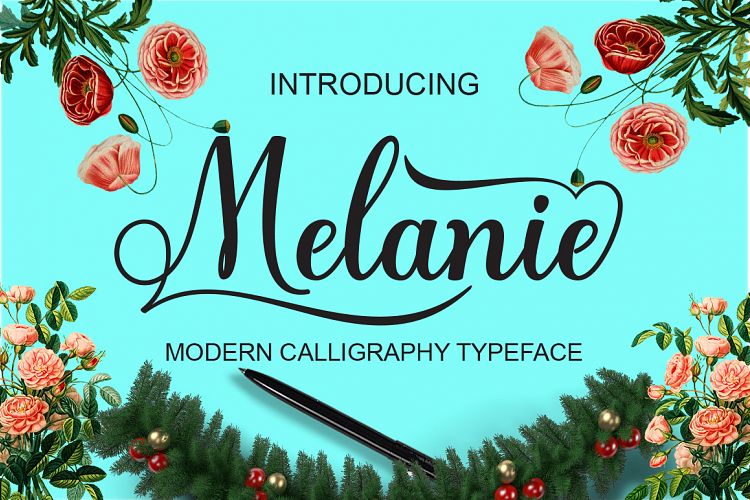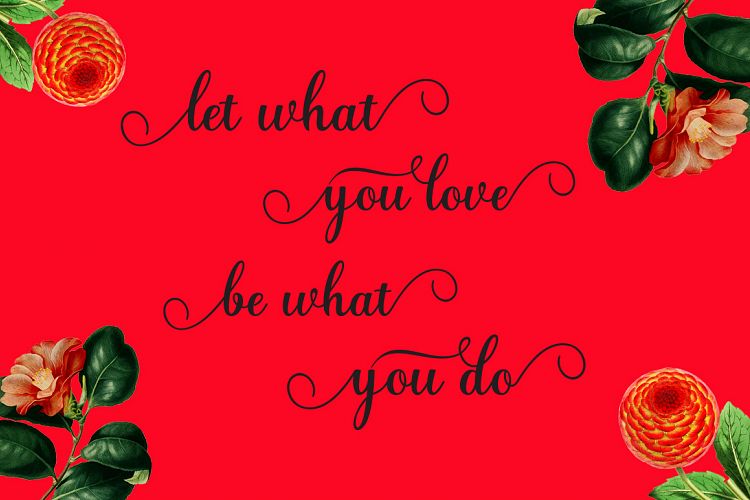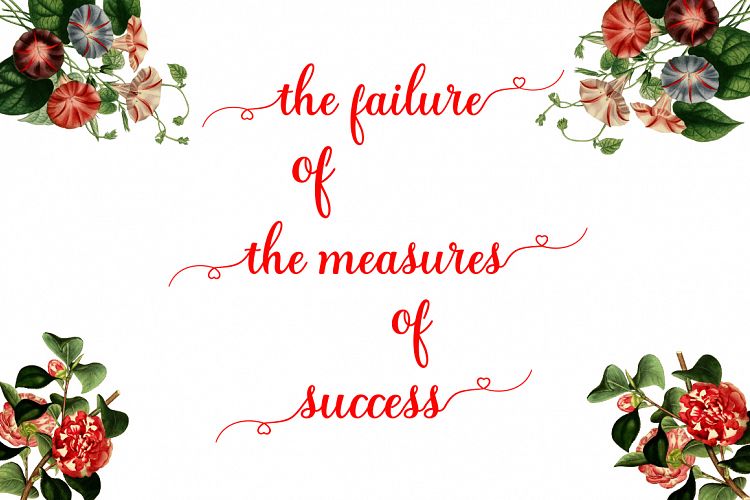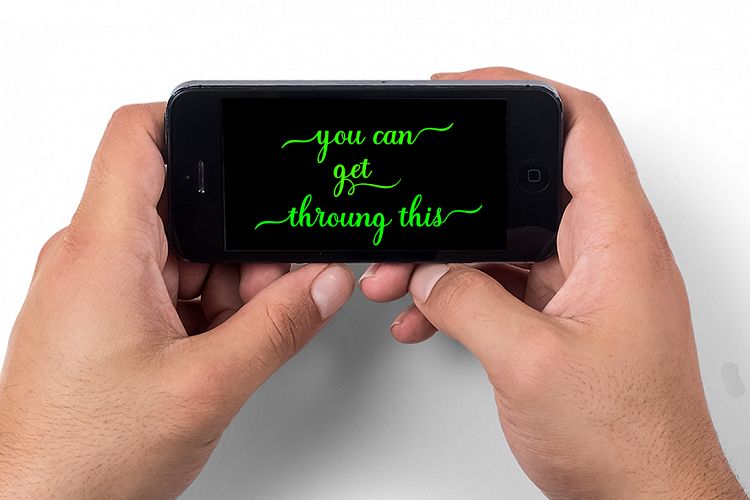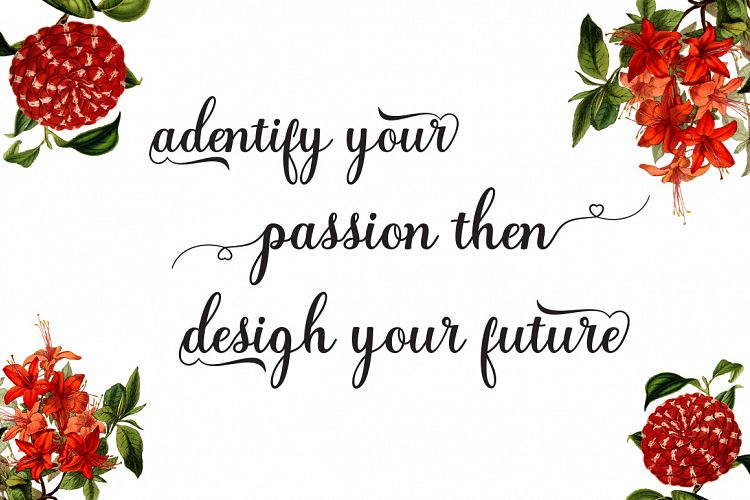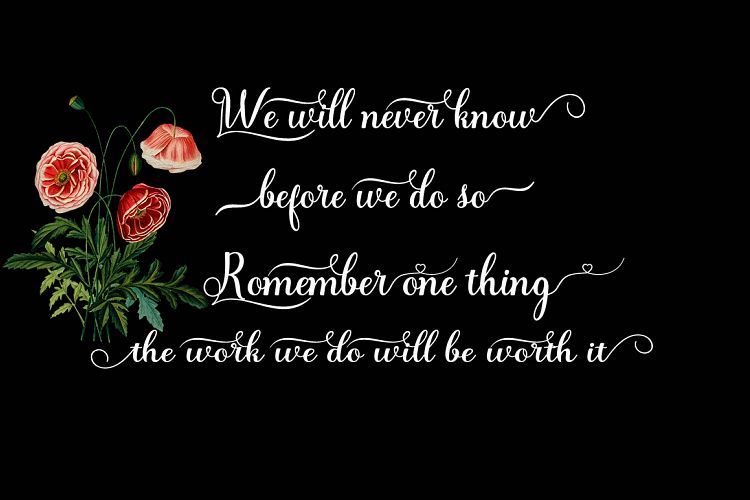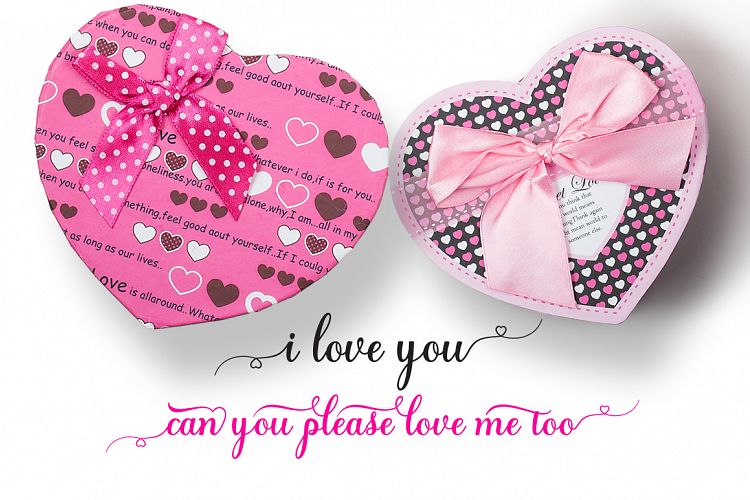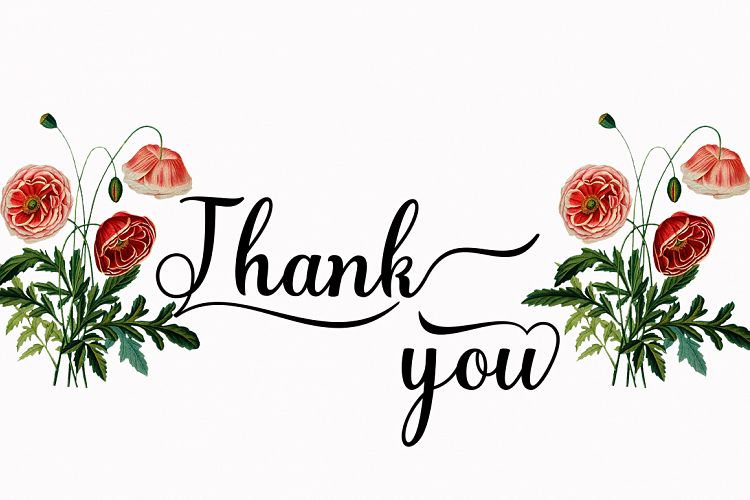
Melanie Font
About Melanie Font
Melanie is a stylish script font created by Naldy Studio.
This smooth font has a varying baseline which makes the letter flow. It can be used for formal and informal projects and works well on both print and digital.